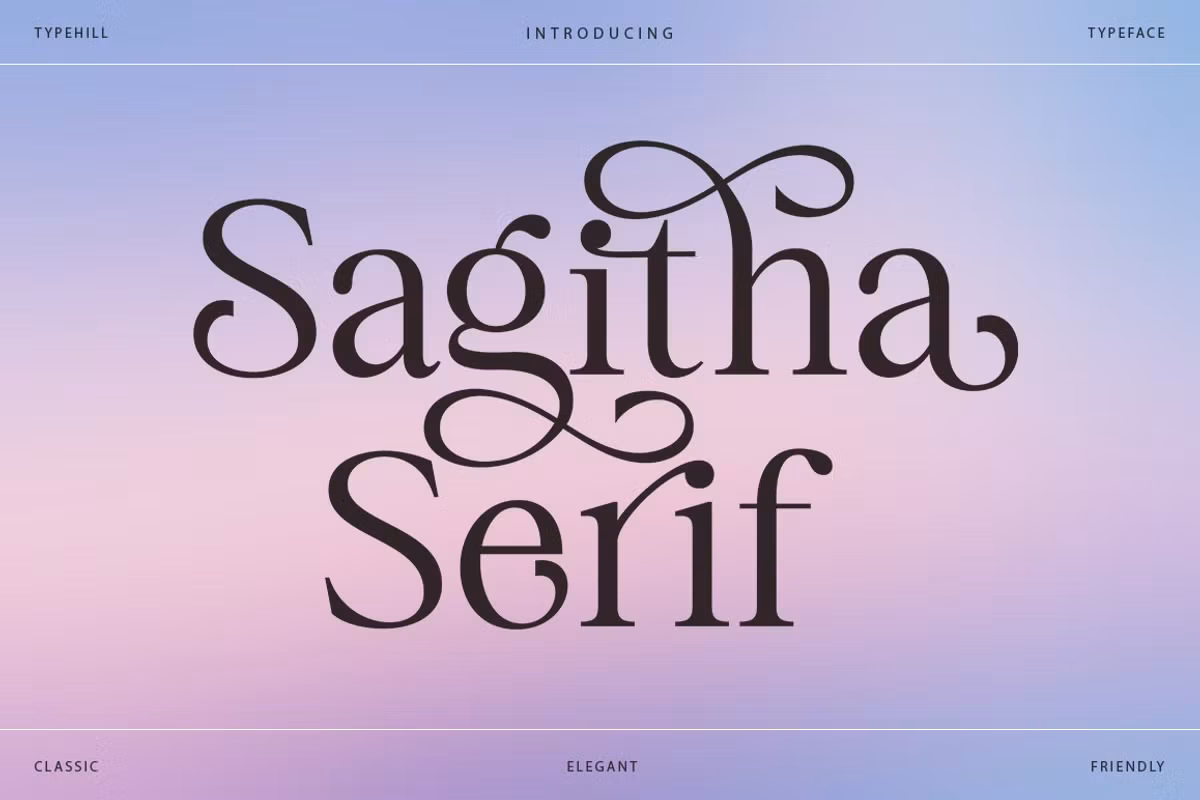
Sagitha Serif Font Free Download is an elegant and modern typeface that blends timeless serif beauty with a clean, contemporary edge. With its high contrast, graceful curves, and refined details, Sagitha is ideal for branding, editorial design, wedding invitations, luxury packaging, and stylish social media content.
This font brings sophistication to every letterform, making your typography feel polished, professional, and upscale. Whether you’re crafting a high-end fashion logo or designing a minimalist website, Sagitha offers both classic elegance and modern versatility.
Designers love Sagitha for its delicate balance of tradition and trend, making it suitable for both digital and print applications. Want to elevate your design with refined serif style? Download Sagitha Serif Font Free Download and let your next project shine with elegance and strength.